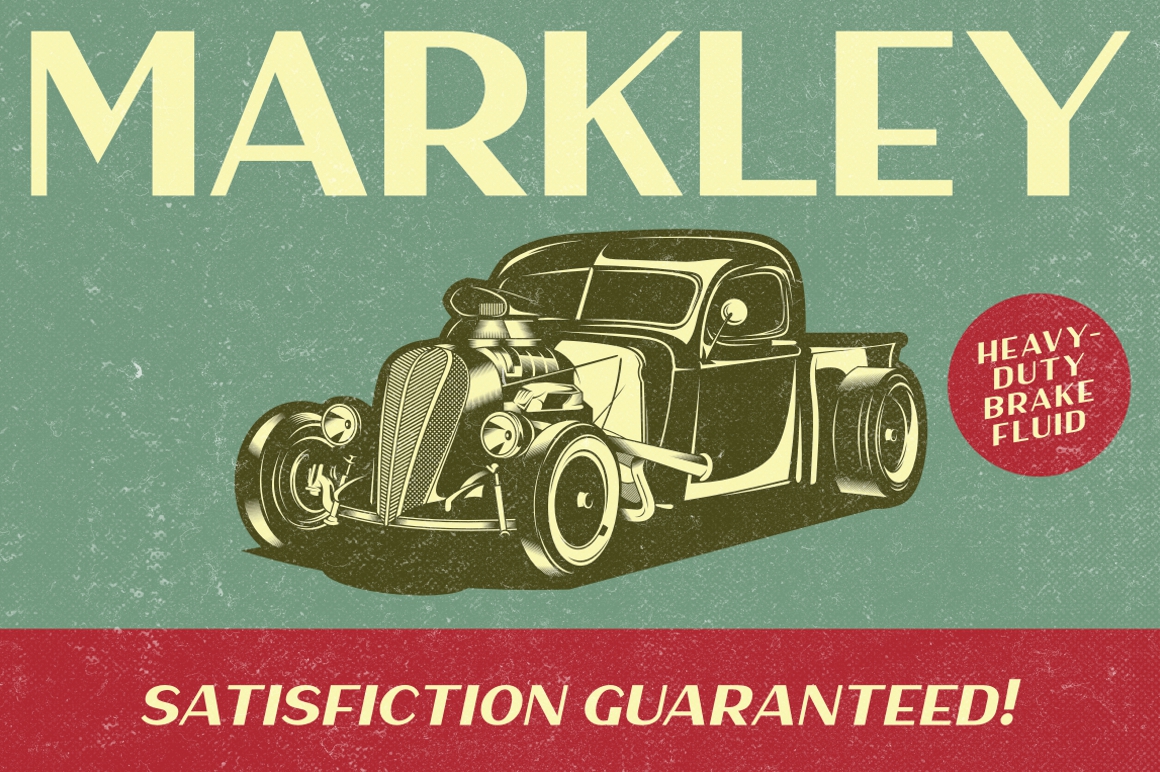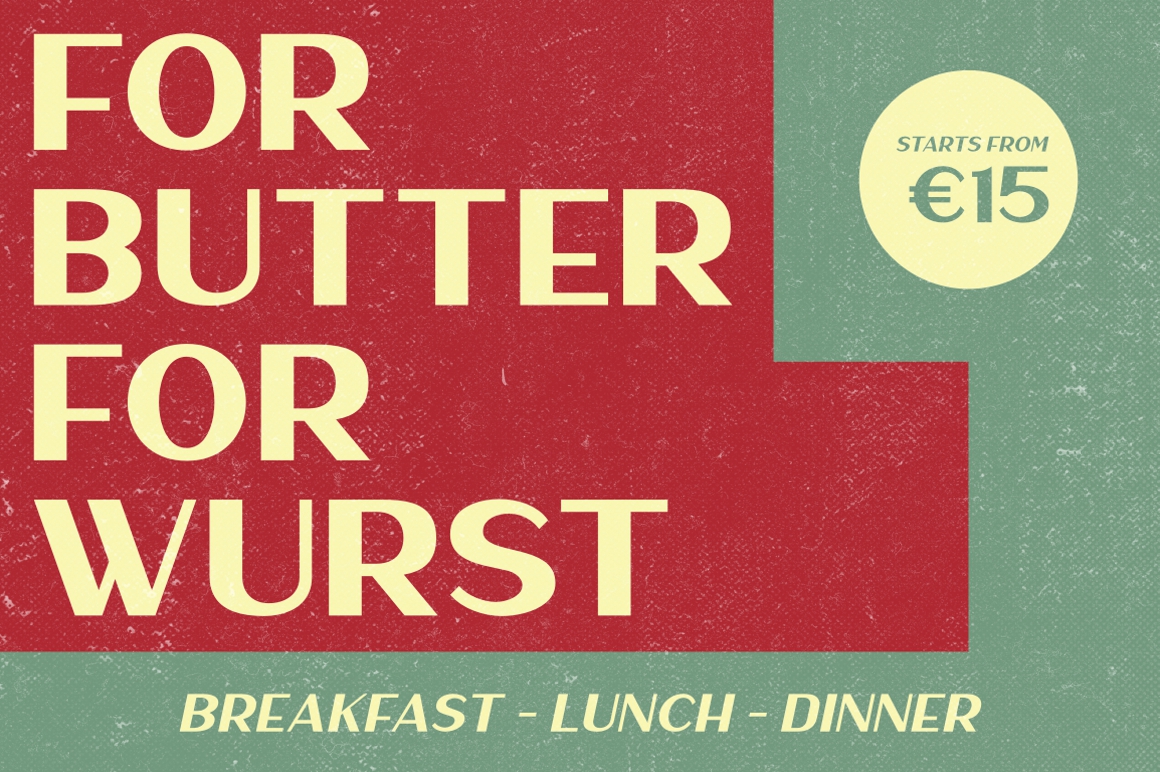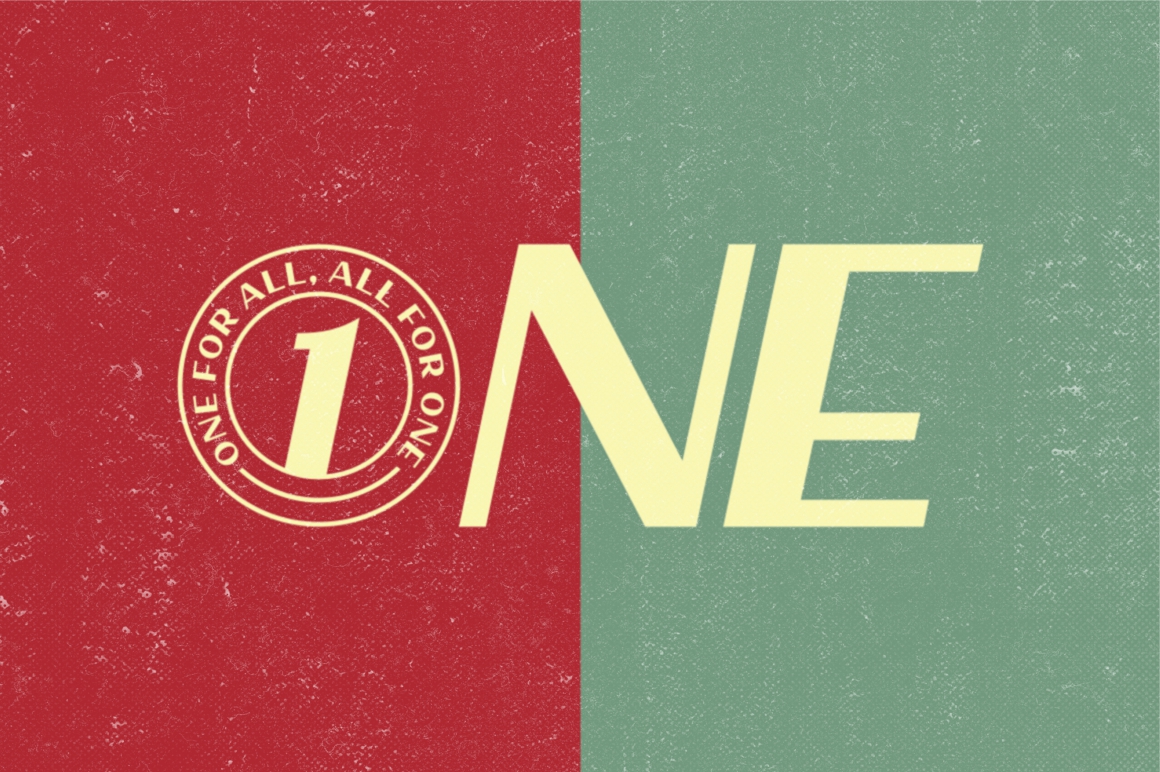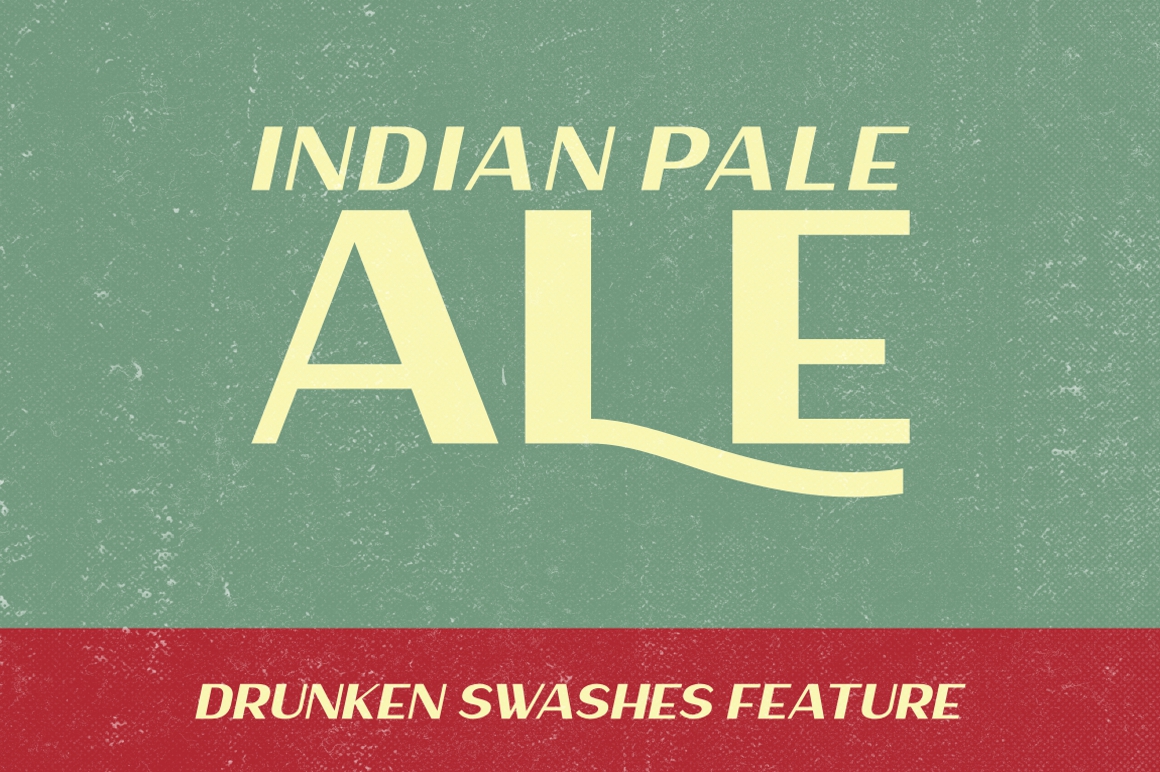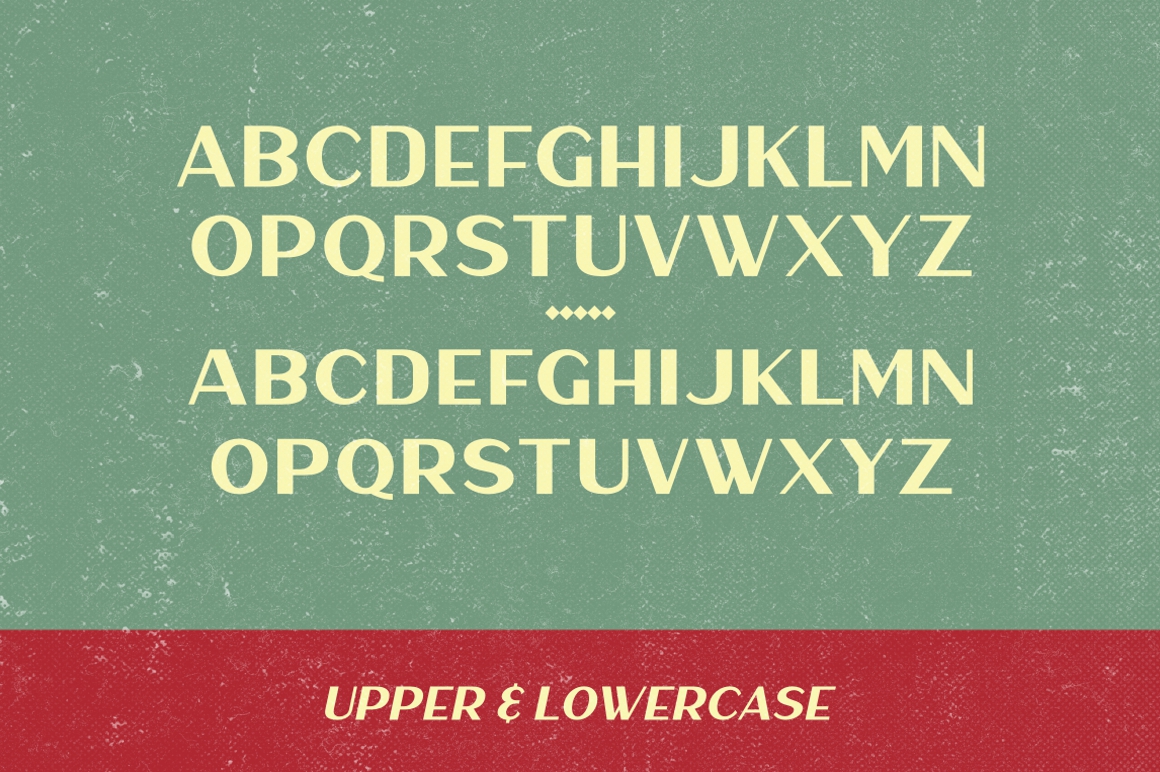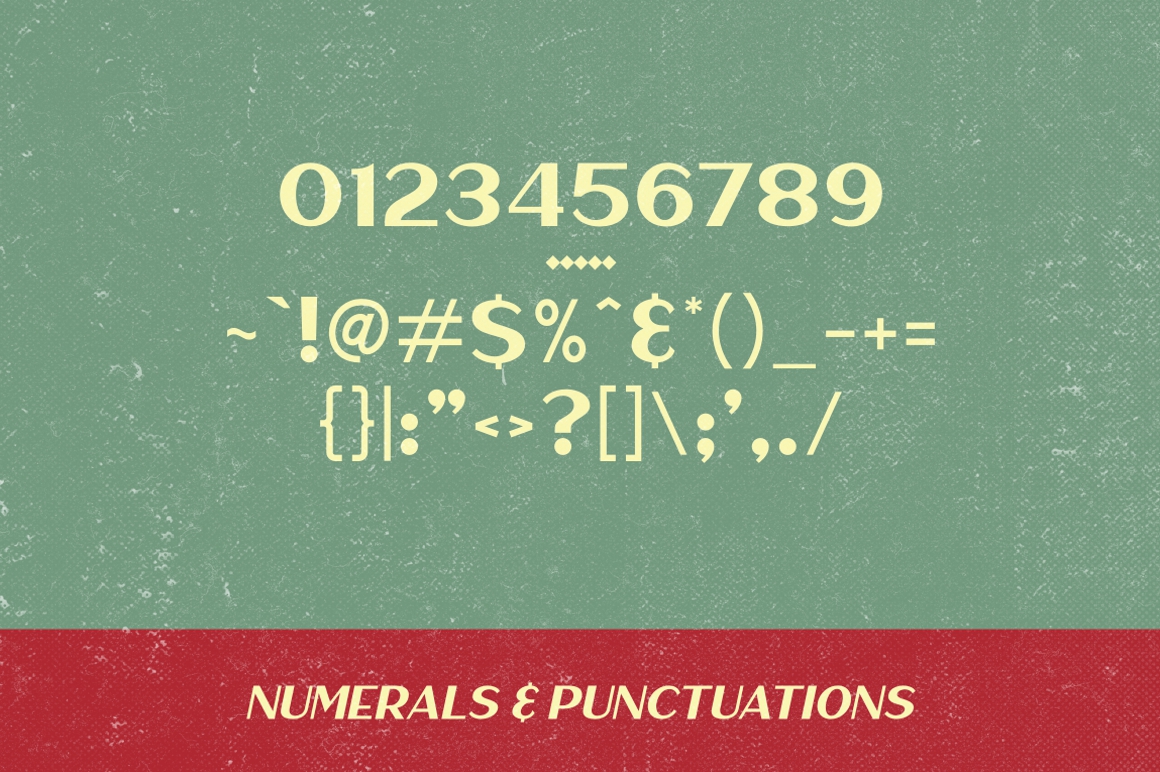
Introduction to Haarlem Sans Font Font
Fonts play a crucial role in design, and the Haarlem Sans Font font is a typeface that brings both character and versatility to any project. Whether you’re working on a branding project, a website, or a print design, the Haarlem Sans Font font offers a unique style that can elevate your work.
Haarlem Sans is a wide sans-serif font with a touch of classic and art-deco style.
Inspired by the calm and uniqueness of Haarlem, a town in the Netherlands, mixed with the old style letters that are used in vintage advertisements (product packaging, posters, etc) Its bold and wide form makes him (yes, heβs a he) suits best as a space killer.
Key Features of Haarlem Sans Font Font
Why Choose Haarlem Sans Font Font?
The Haarlem Sans Font font is more than just a typeface β it’s a design tool that helps you communicate your message with style and clarity. Its unique character set and versatile design make it suitable for a wide range of applications, from elegant invitations to bold headlines.
With its carefully crafted letterforms and balanced proportions, the Haarlem Sans Font font ensures readability and visual appeal across all mediums.
What makes Haarlem Sans Font font special?
The Haarlem Sans Font font stands out with its unique design, exceptional readability, and versatility across various design applications.